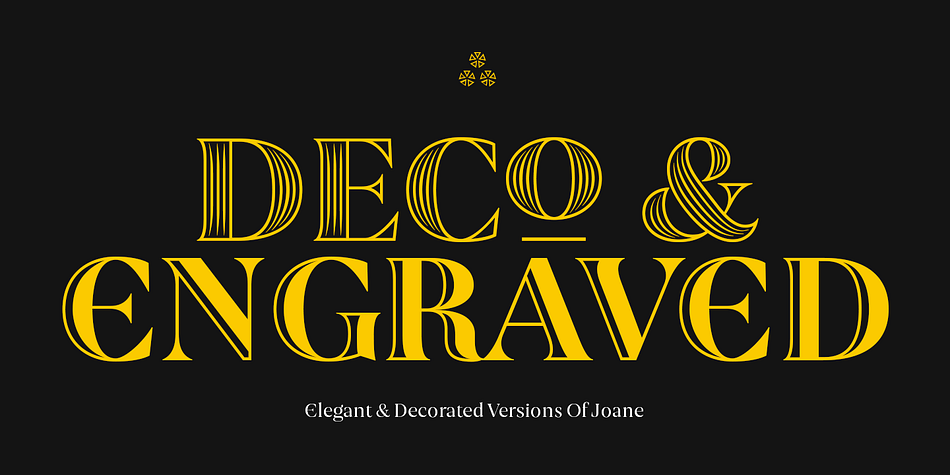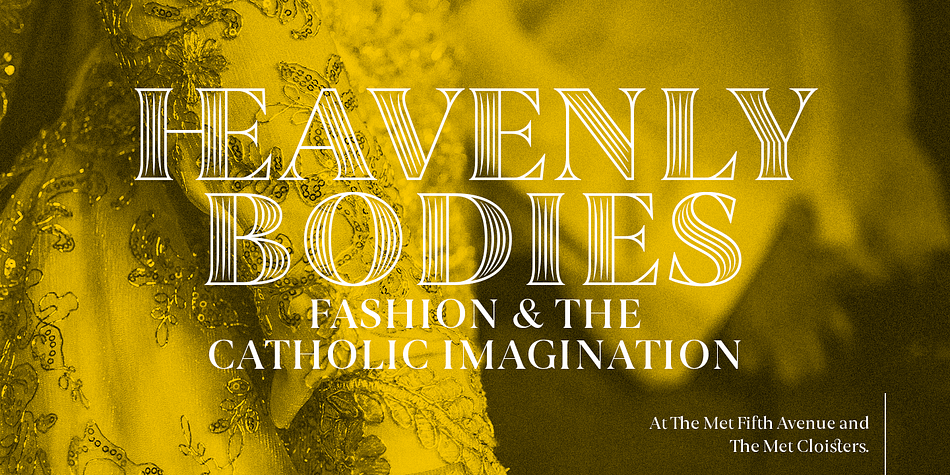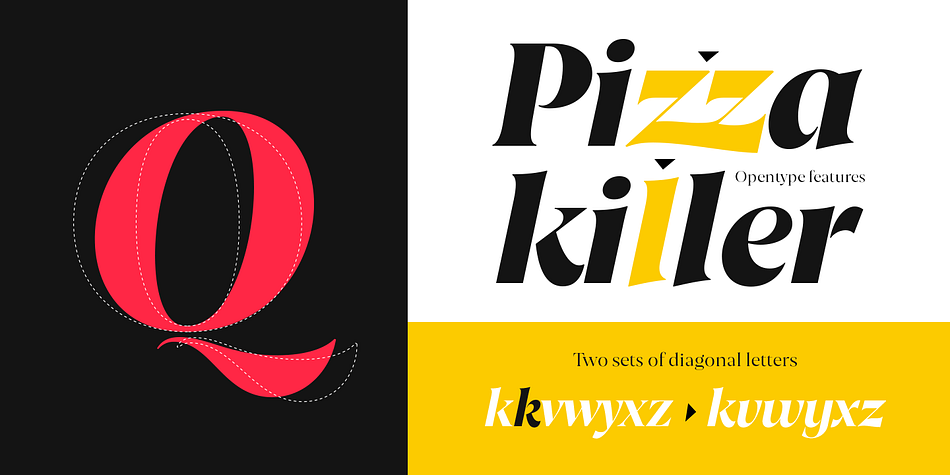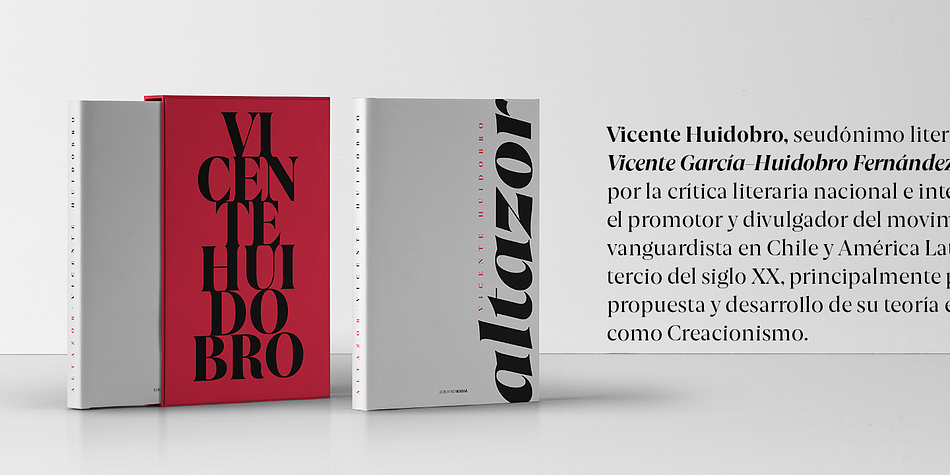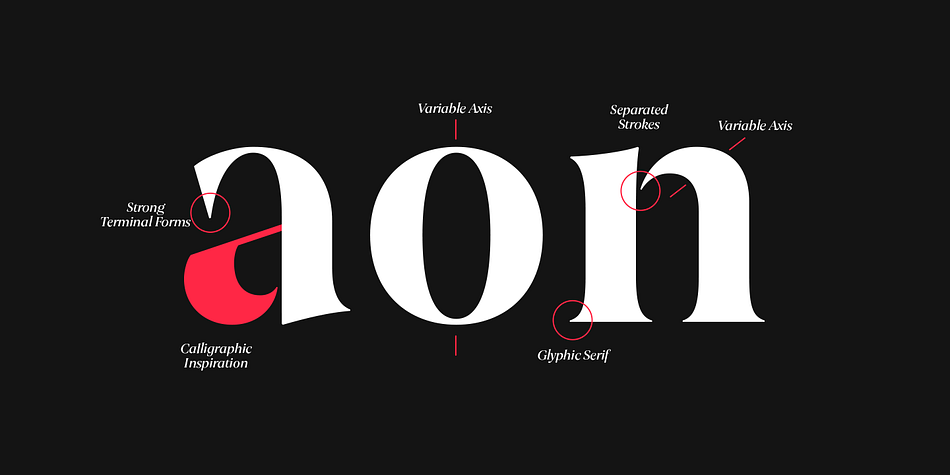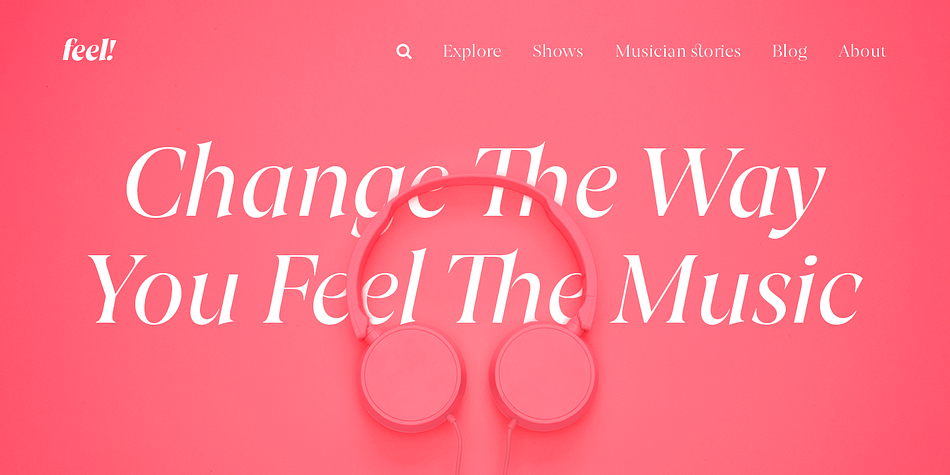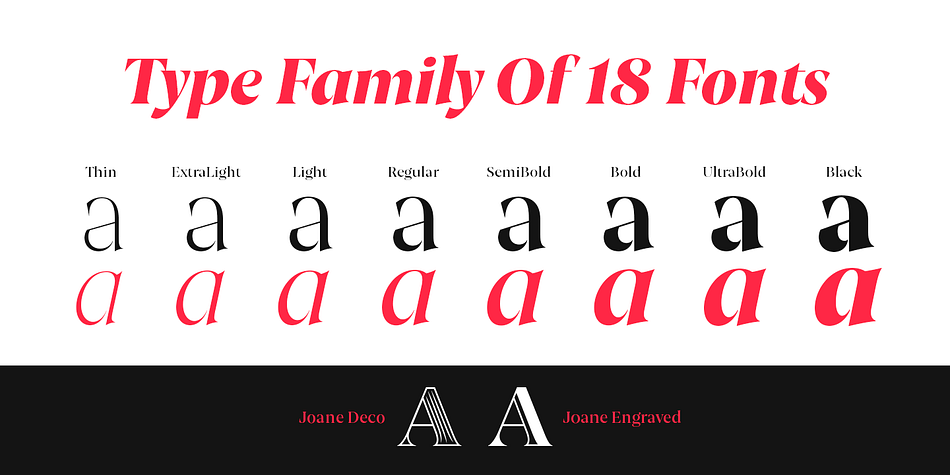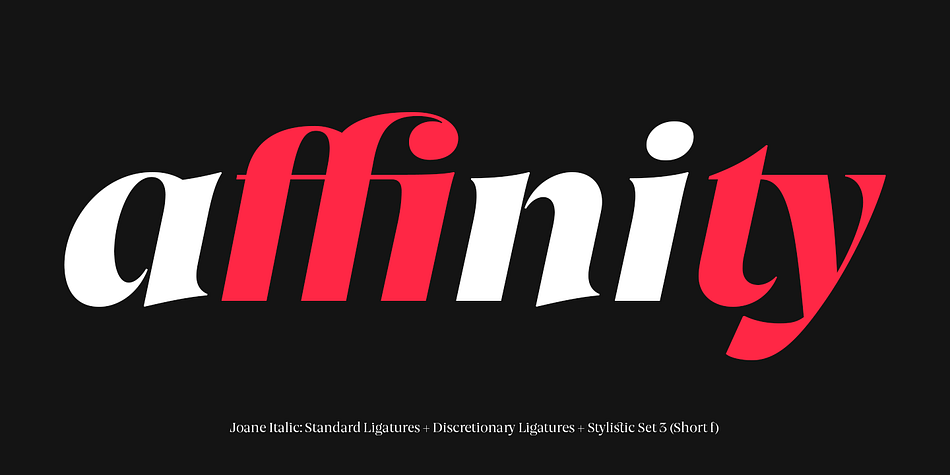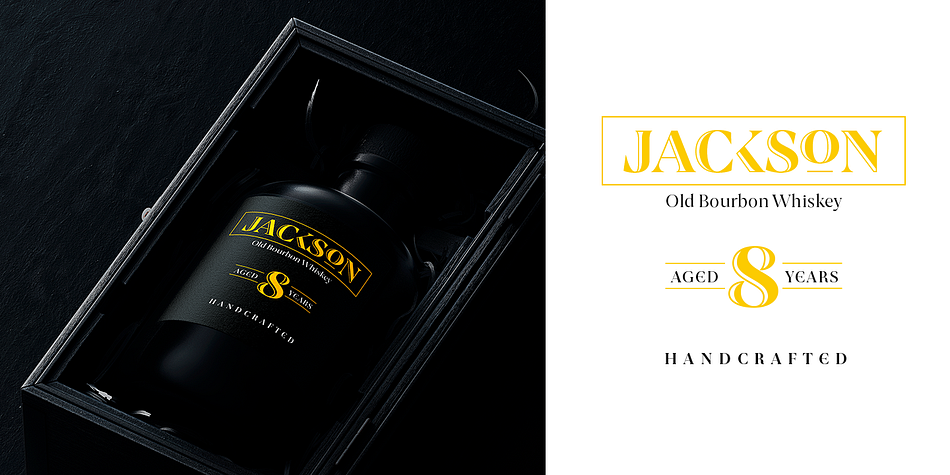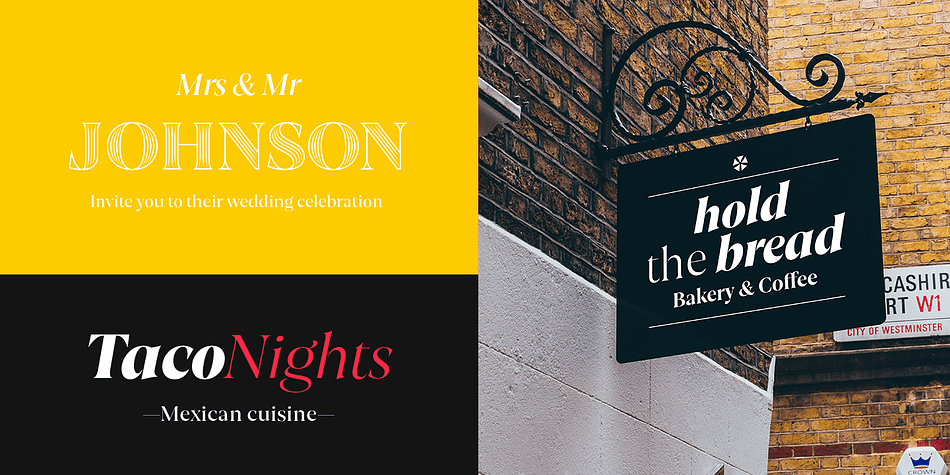
Designed by Ale Navarro, Joane is an art deco, display serif and serif font family. This typeface has eighteen styles and was published by W Type Foundry.
Joane mixes the elegancy of French didones, calligraphic endings and glyphic serifs, thus its features convey a warm unique style. Moreover, its curves have been beautifully designed, and it also comes with both and engraved and deco versions, which add more versatility to the way it can be used. Joanes is perfectly suited for magazines, branding, advertising, labels, web and packaging.